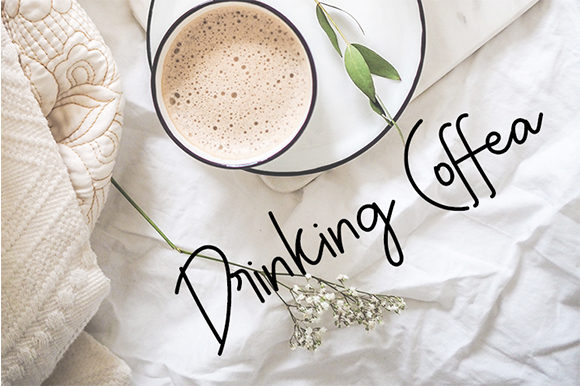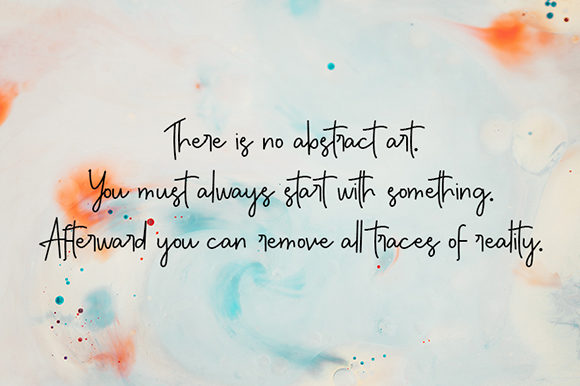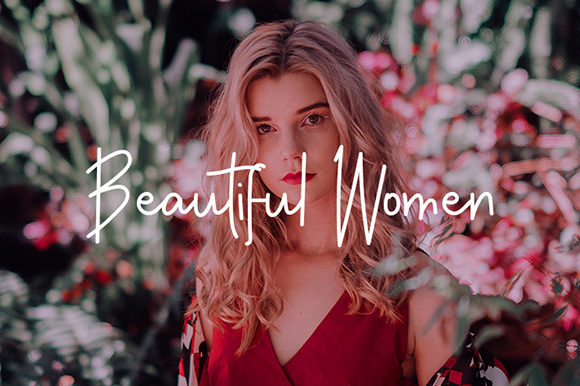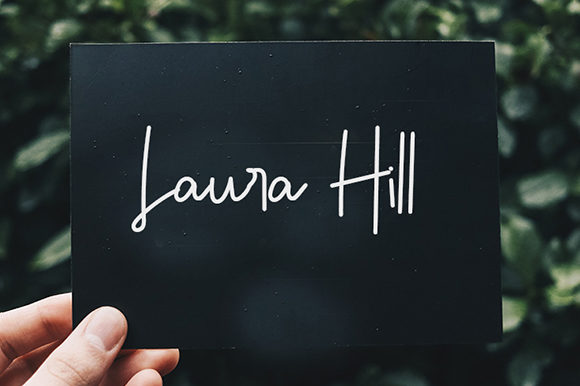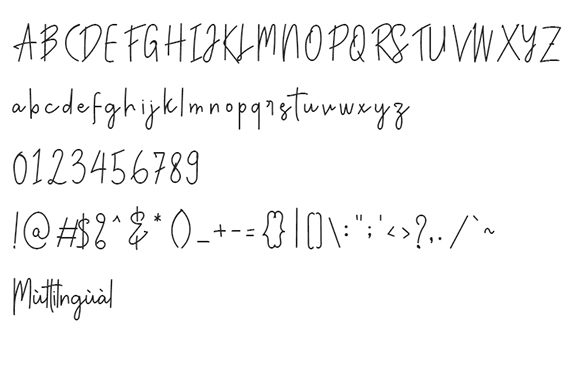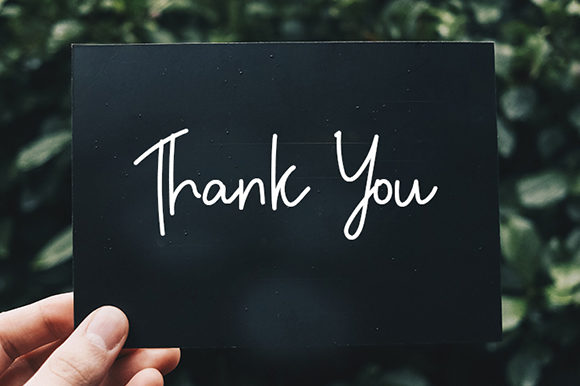
Introducing Anatonym Font: Elevate Your Designs with a Cool and Fancy Handwritten Style
Are you tired of using the same old fonts in your design projects? Do you want to add a touch of personality and elegance to your creations? Look no further than Anatonym Font, a stunning handwritten font that is sure to take your designs to the next level. In this article, we’ll dive into the world of Anatonym Font, exploring its unique features, benefits, and uses, as well as provide tips and inspiration for incorporating it into your design workflow.
What is Anatonym Font?
Anatonym Font is a cool and fancy handwritten font that boasts an original style, perfect for adding a special feel to any design project. Its unique and elegant lettering makes it an excellent choice for designers, crafters, and anyone looking to add a personal touch to their creations. Whether you’re working on a logo, branding, packaging, or social media graphics, Anatonym Font is sure to make your designs stand out.
Key Features of Anatonym Font
- Handwritten style: Anatonym Font features a beautiful, handwritten style that adds a touch of warmth and personality to any design.
- Original design: Unlike many fonts that are overused and lack originality, Anatonym Font boasts a unique design that will help your creations stand out.
- Elegant lettering: The font’s elegant lettering makes it perfect for designs that require a touch of sophistication and refinement.
- Versatile: Anatonym Font is versatile and can be used for a wide range of design projects, from logos and branding to packaging and social media graphics.
Benefits of Using Anatonym Font
So, why should you choose Anatonym Font for your design projects? Here are just a few benefits of using this amazing font:
- Adds personality to your designs: Anatonym Font’s unique and handwritten style adds a touch of personality to your designs, making them more engaging and memorable.
- Elevates your brand: By using Anatonym Font in your branding, you can create a cohesive and sophisticated visual identity that sets your brand apart.
- Easy to read: Despite its elegant and cursive style, Anatonym Font is easy to read, making it perfect for body text and other written content.
- Supports multiple languages: Anatonym Font supports multiple languages, making it a great choice for designers who work with international clients or create content for a global audience.
Tips for Using Anatonym Font
Now that you know more about Anatonym Font, here are some tips for incorporating it into your design workflow:
- Pair it with bold fonts: Anatonym Font looks great when paired with bold fonts, creating a beautiful contrast that adds visual interest to your designs.
- Use it for headings and titles: Anatonym Font’s elegant lettering makes it perfect for headings and titles, adding a touch of sophistication to your designs.
- Experiment with colors: Anatonym Font looks great in a variety of colors, so don’t be afraid to experiment and find the perfect hue for your design.
- Use it consistently: To create a cohesive visual identity, use Anatonym Font consistently across all your design projects.
Inspiration for Using Anatonym Font
Still not sure how to use Anatonym Font in your designs? Here are some inspiring examples of how you can use this amazing font:
- Logos and branding: Use Anatonym Font to create a unique and memorable logo that sets your brand apart.
- Packaging design: Add a touch of elegance to your packaging designs with Anatonym Font, perfect for luxury brands and products.
- Social media graphics: Use Anatonym Font to create eye-catching social media graphics that grab attention and drive engagement.
- Invitations and stationery: Anatonym Font is perfect for creating beautiful invitations, stationery, and other paper goods.
In conclusion, Anatonym Font is a cool and fancy handwritten font that is sure to elevate your designs and add a special feel to any project. With its unique and elegant lettering, versatility, and ease of use, Anatonym Font is a must-have for designers, crafters, and anyone looking to create stunning visual content. So why wait? Download Anatonym Font today and take your designs to the next level!